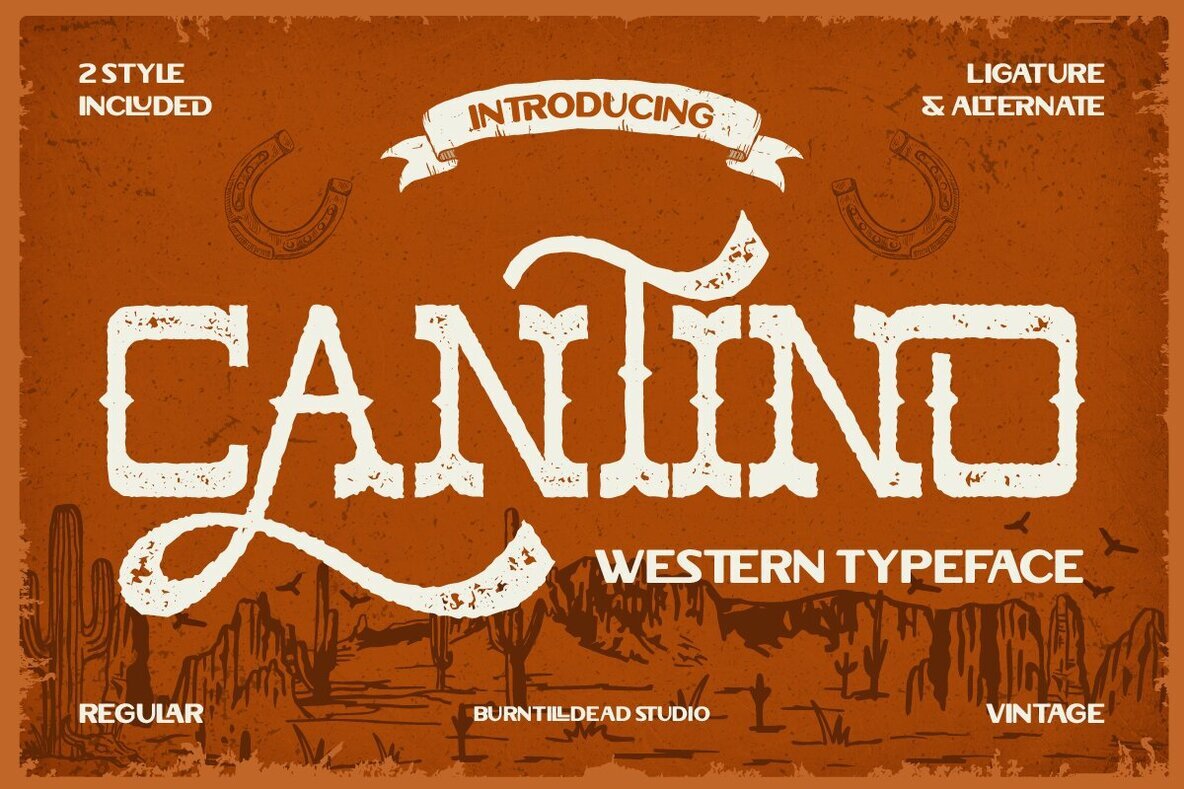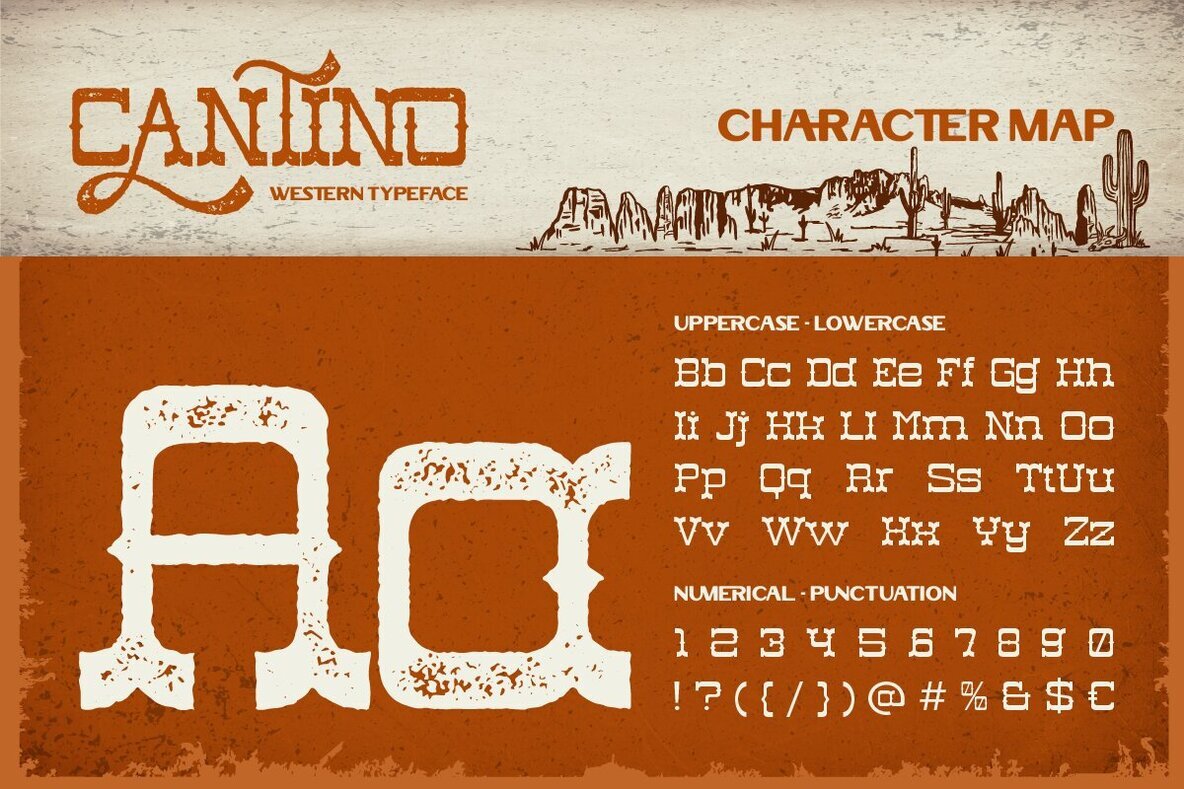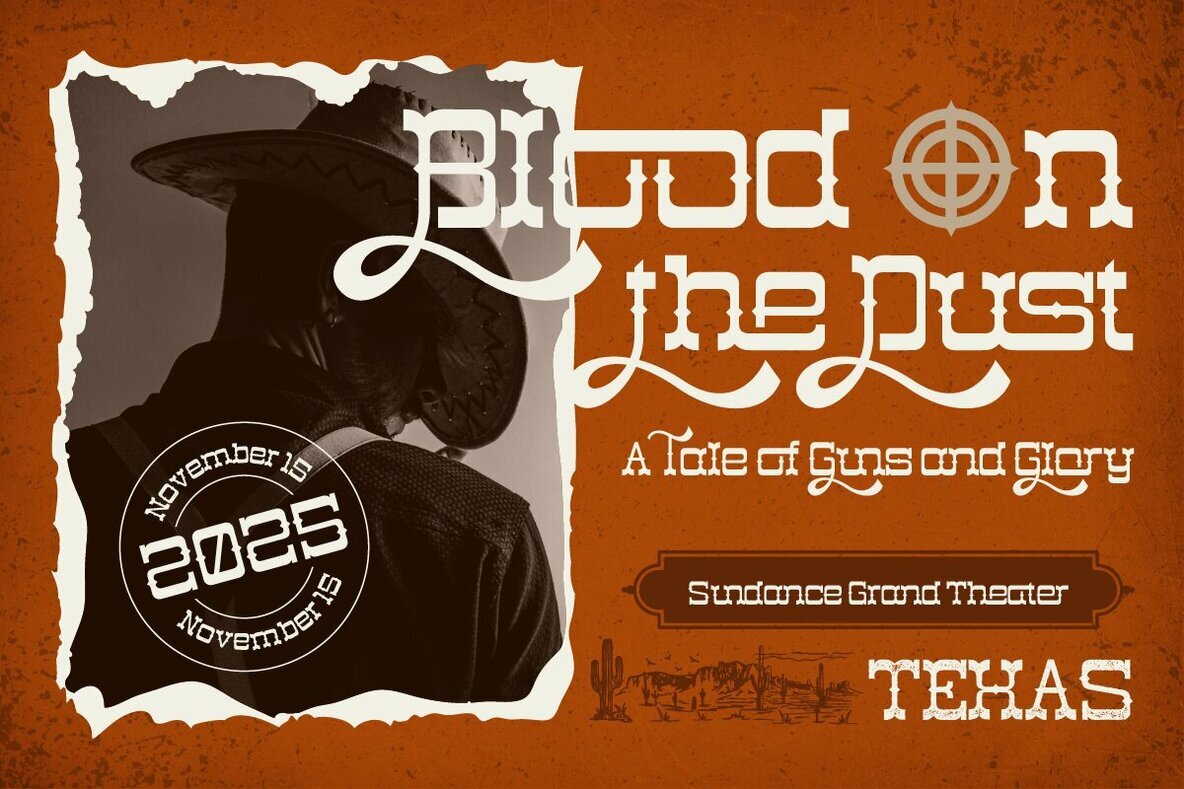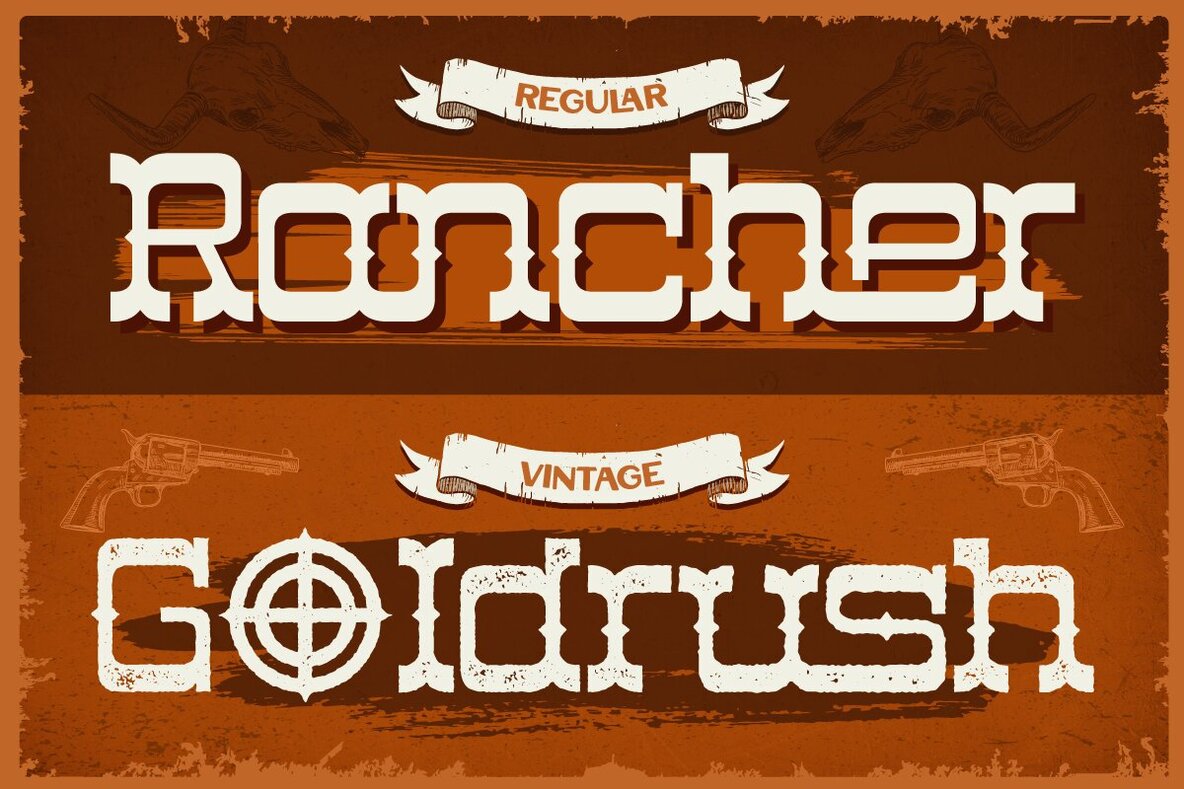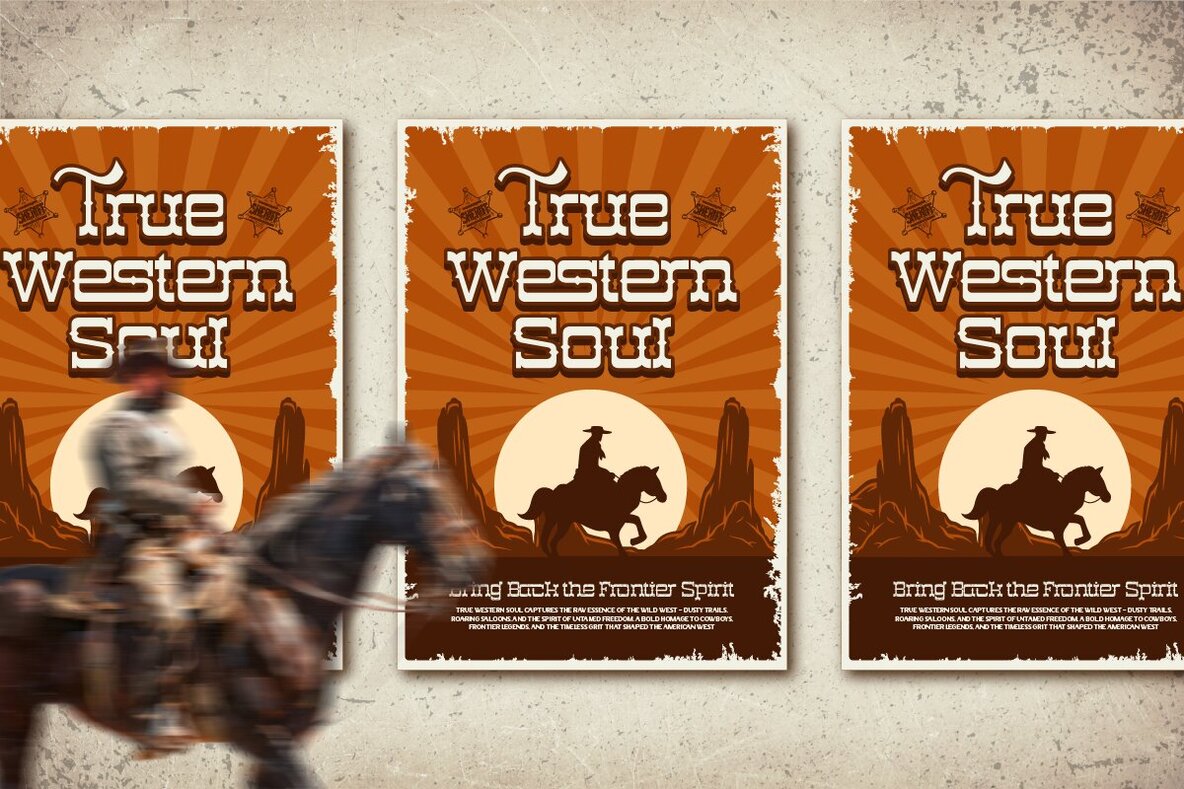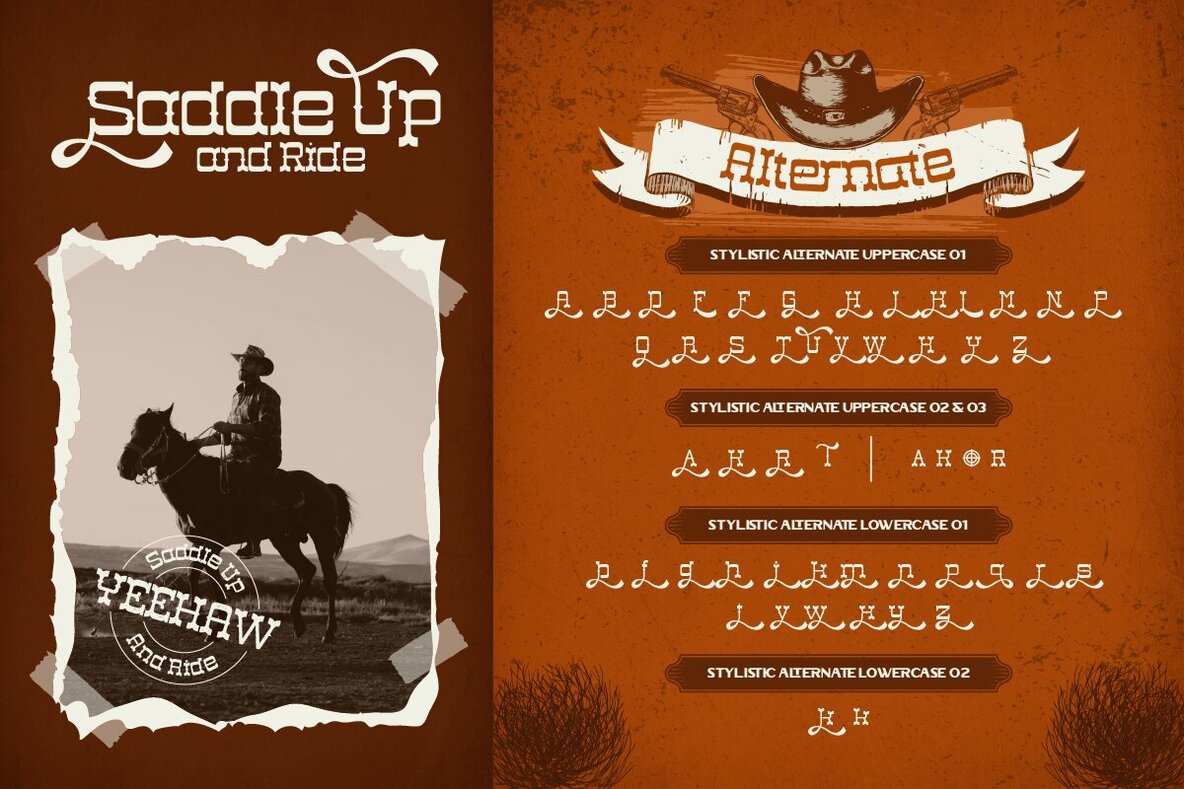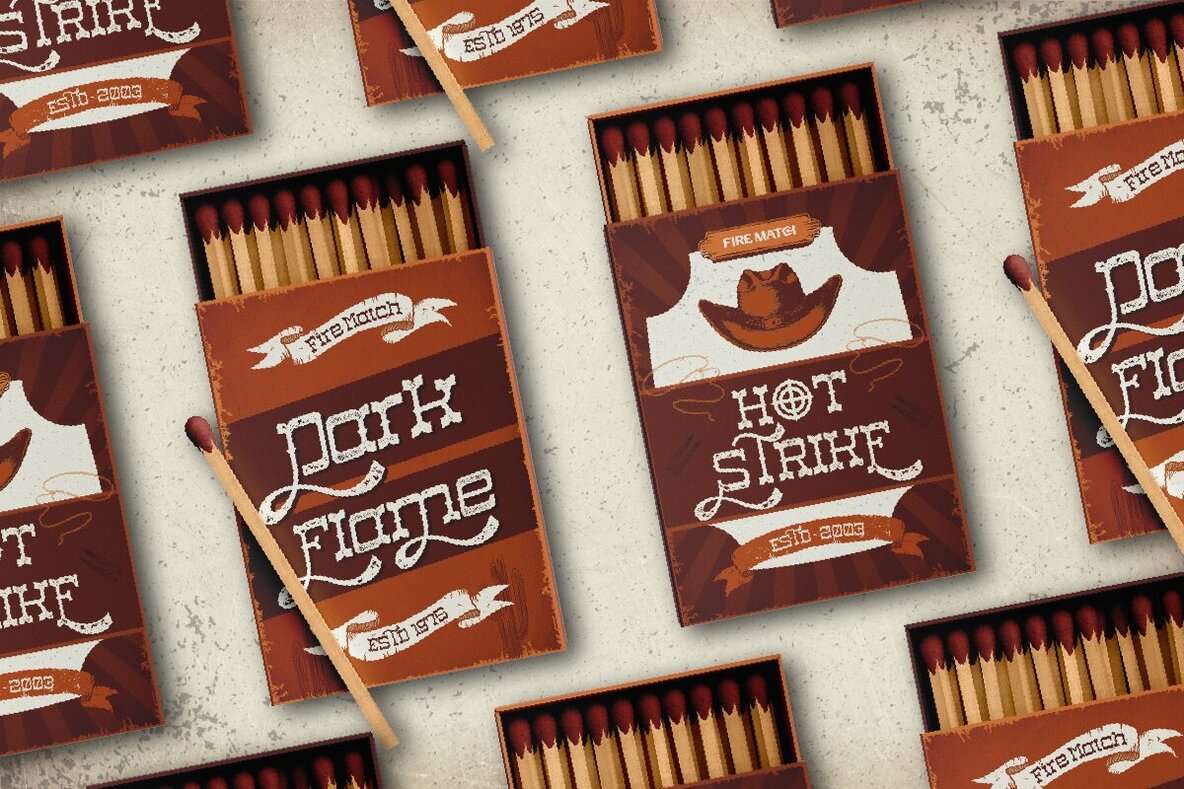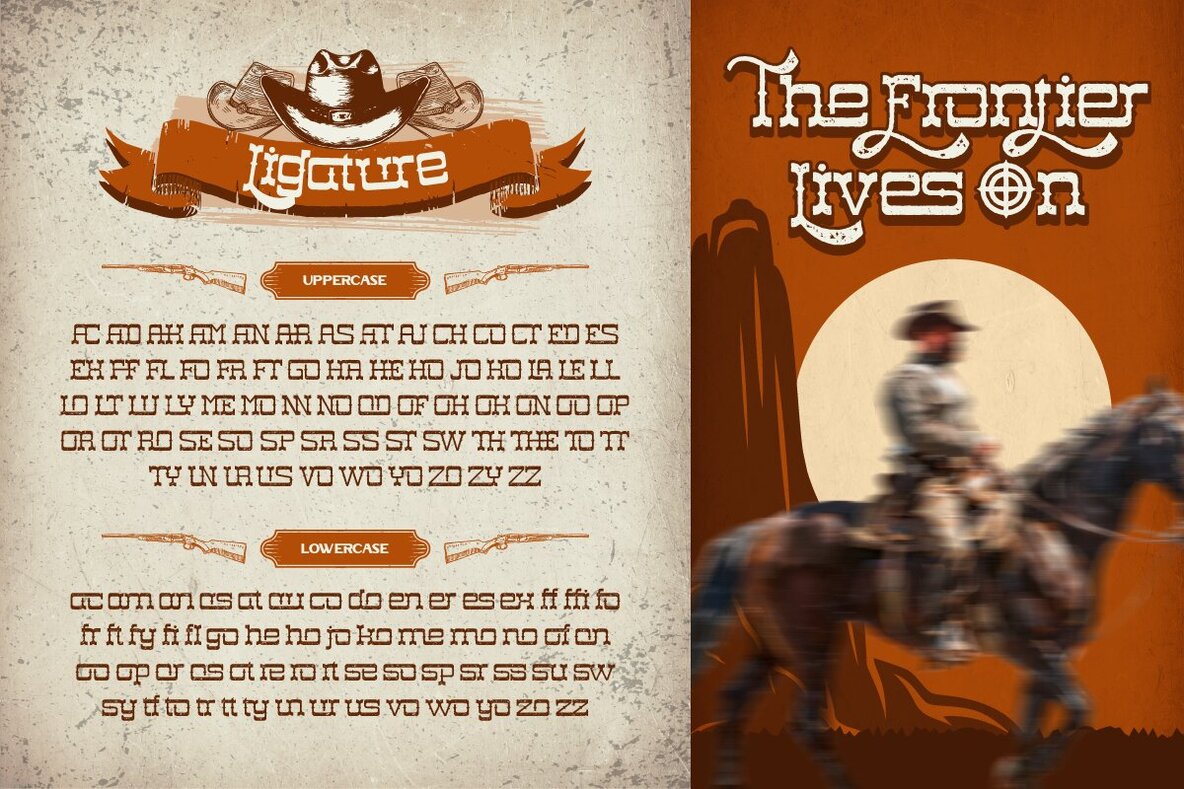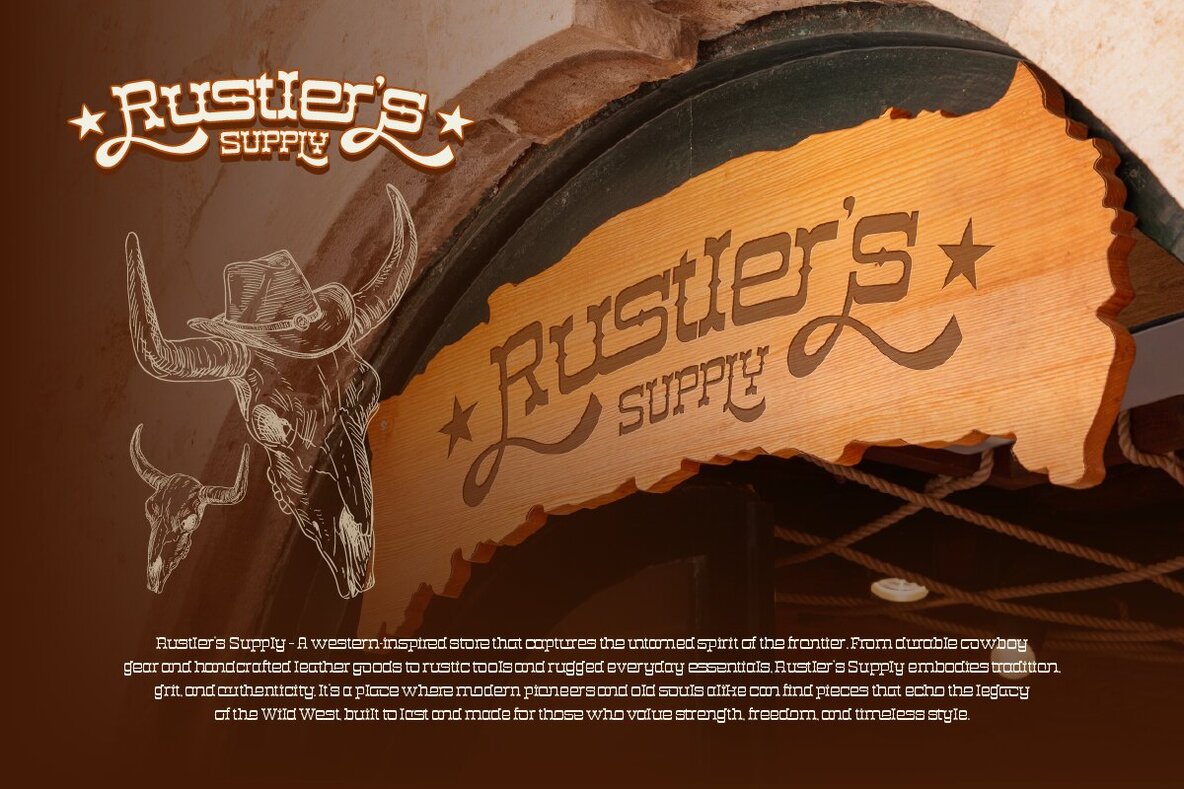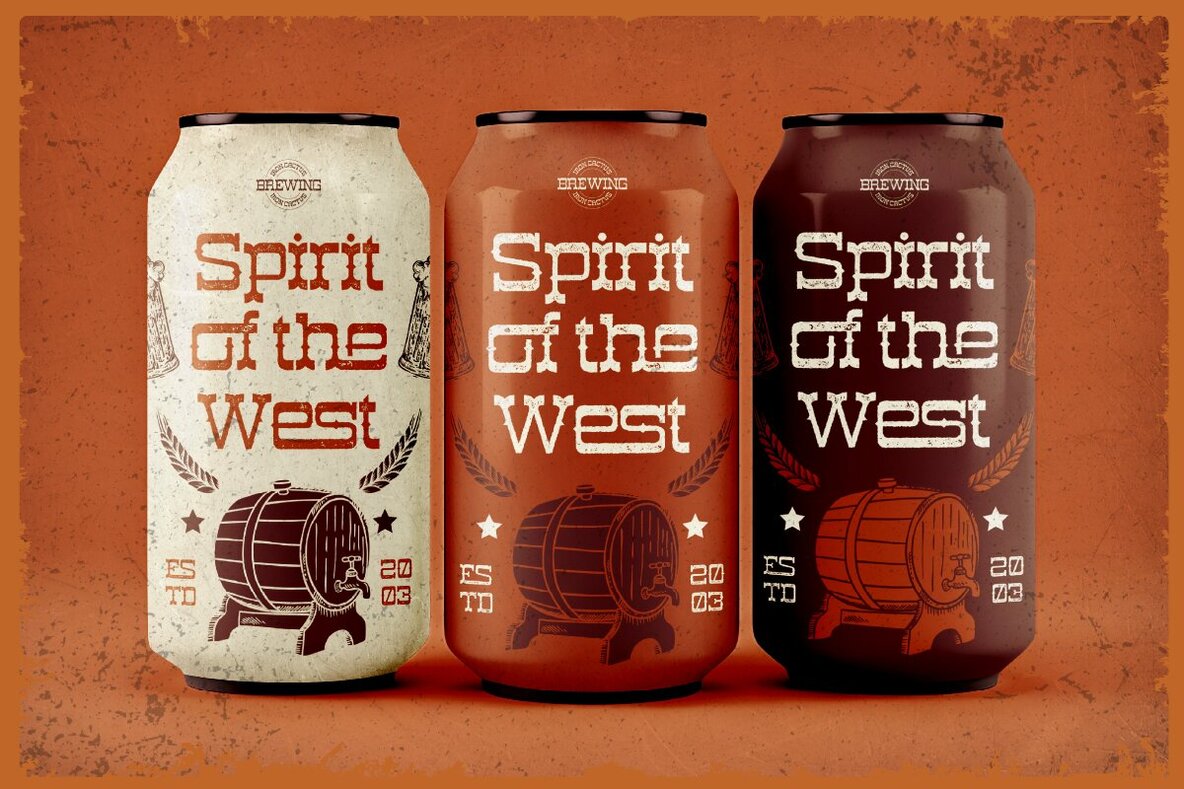
Cantino Font
Cantino Regular
Cantino Vintage
Cantino, a bold Western-style typeface, evokes the dusty charm of the Old West. Drawing inspiration from cowboy posters, saloon signs, and the spirit of the wild frontier, this font is designed for those daring to make a statement. Cantino offers two distinct styles—Regular and Vintage—enhanced by a set of ligatures and alternates that imbue authentic Western flair into your designs. Perfect for crafting movie titles, ranch logos, rodeo posters, or vintage packaging, Cantino ensures each word resonates like a ride through a desert sunset. Features:Saddle Up With Cantino: Bold Western Typeface